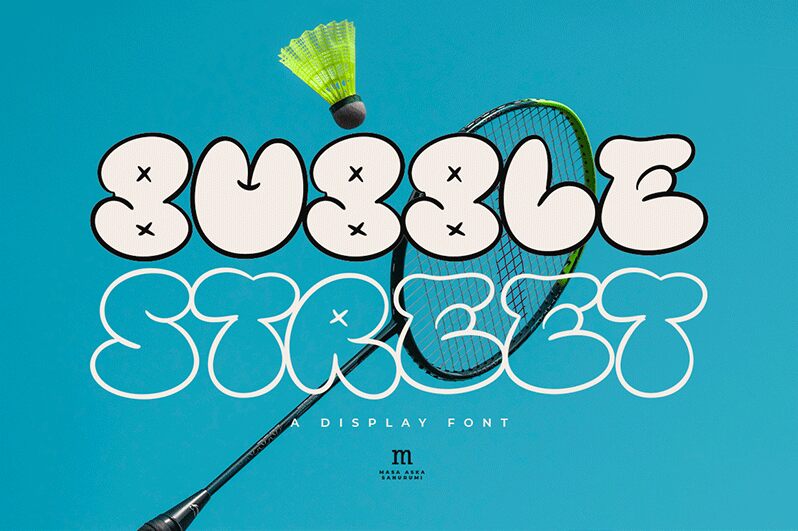
Bubble Street Outline springs to life with a playful and exuberant flair, courtesy of the creative vision of Masa Aska Sanurumi. This display font from the Bubble Street family boasts a cartoon style that captures the imagination, featuring bold and rounded letters as if they've been blown from a wand by a child at play. Its outlines suggest the airy lightness of bubbles, while its robust form ensures legibility and presence.
Perfect for designs that aim to evoke joy and whimsy, Bubble Street Outline is an excellent choice for children's books, party invitations, or any project that calls for a touch of fun. It's this combination of charm and clarity that makes it versatile for both digital graphics and print materials where personality is key.
Bubble Street Outline
Masa Aska Sanurumi